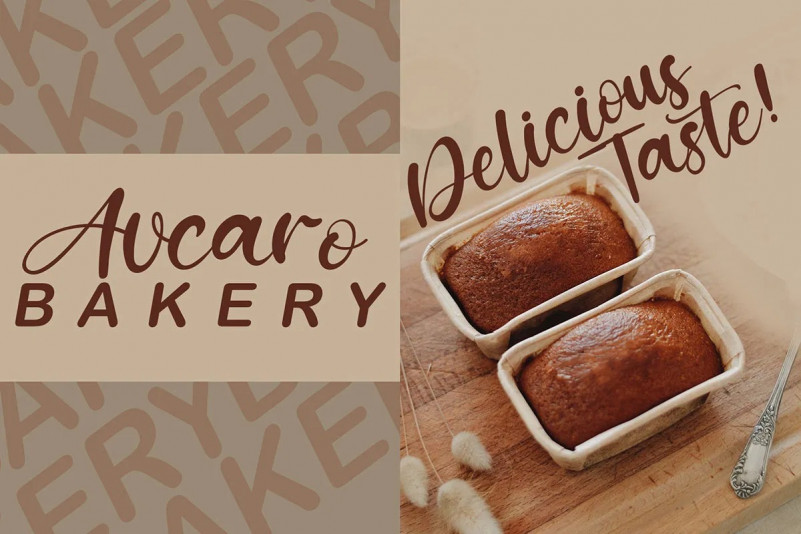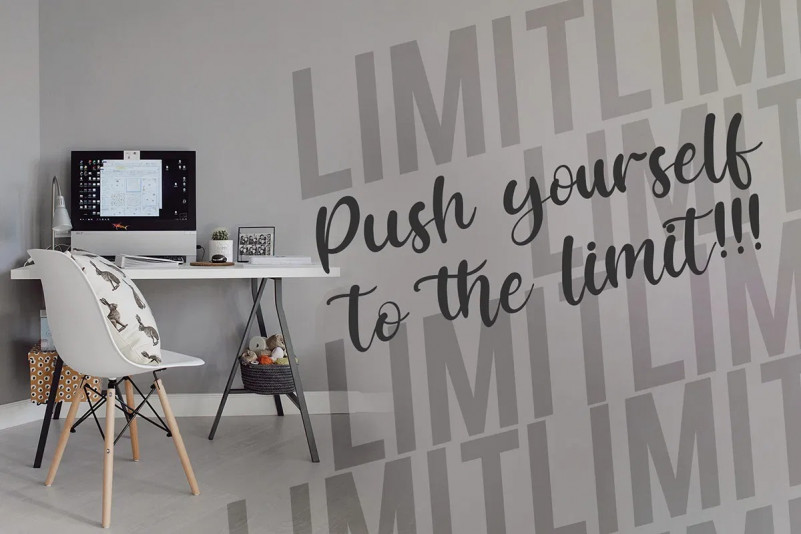
Ressoven Script Font
Ressoven Script Font by Kong Font 21,193 downloads
Ressoven Script Font
Introducing our New Font, very suitable as to make adorable invitation for wedding, birthday, special day. A collection of letters and numbers suitable your projects also great for Logotype, Branding Design, Logo Design, Digital Lettering Arts, T-Shirt/Apparel, Poster, Magazine, Signs, Advertising Design, and also perfect for your other projects branding.